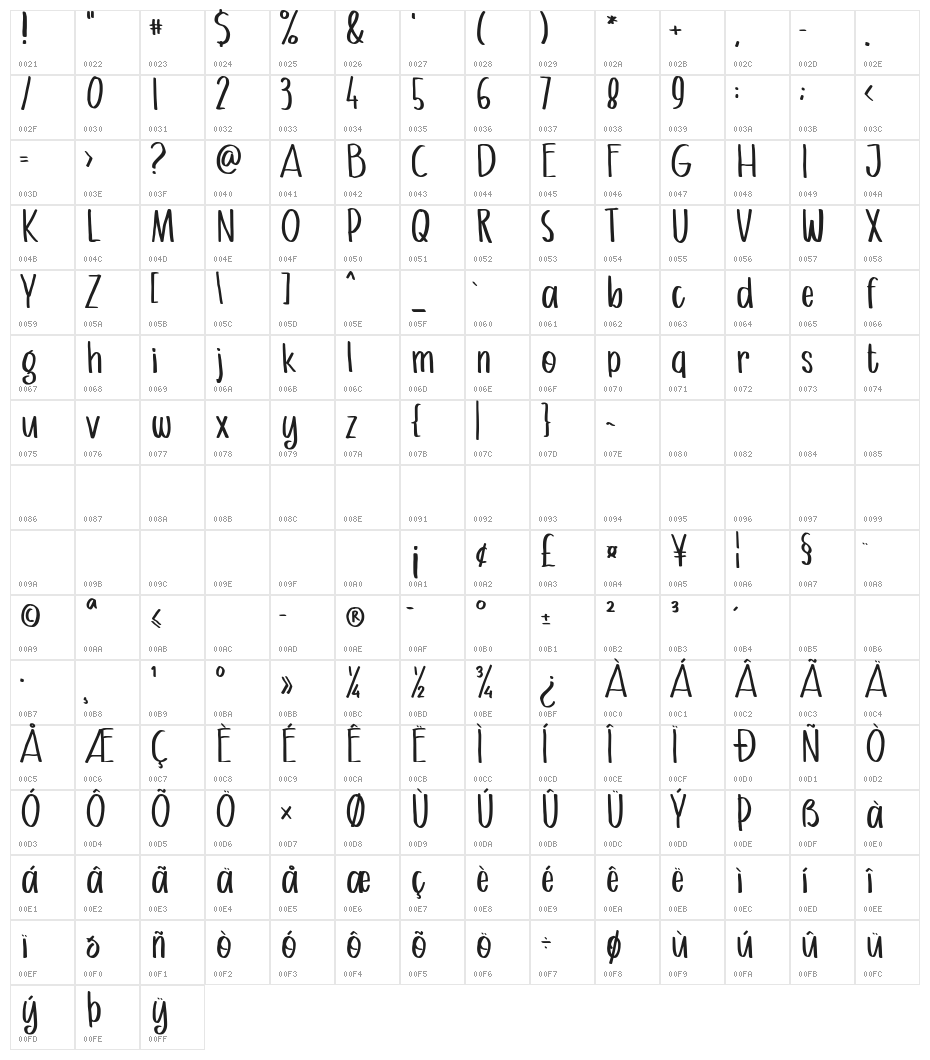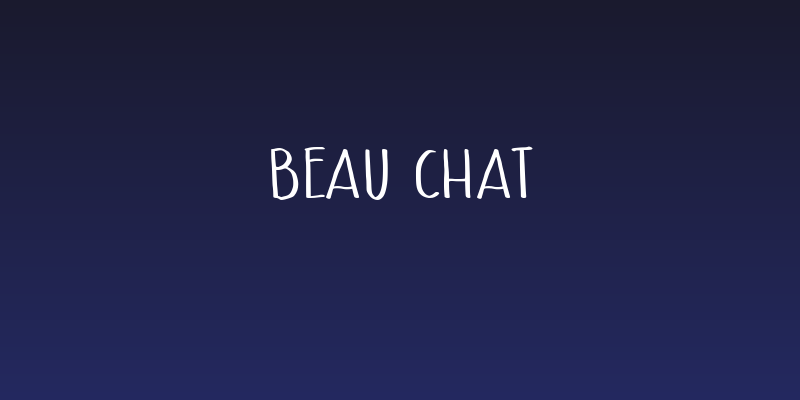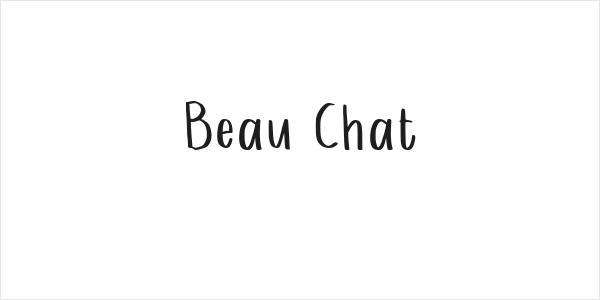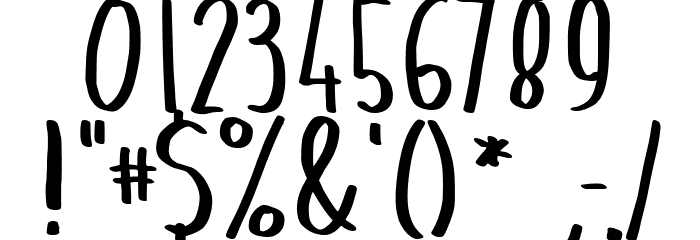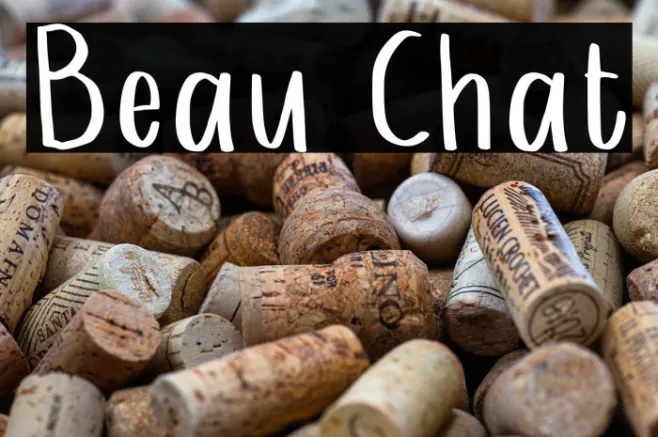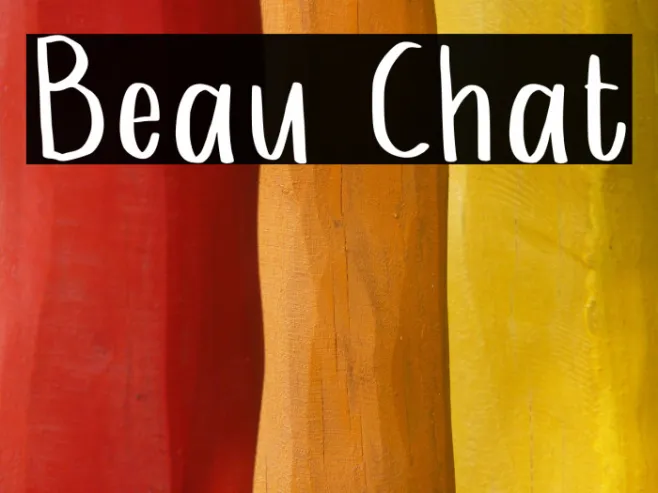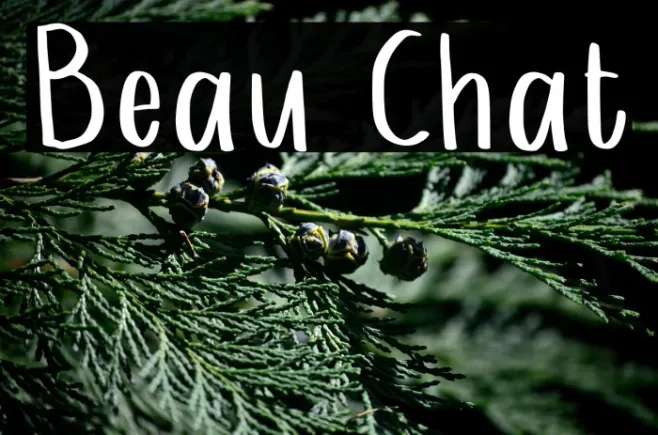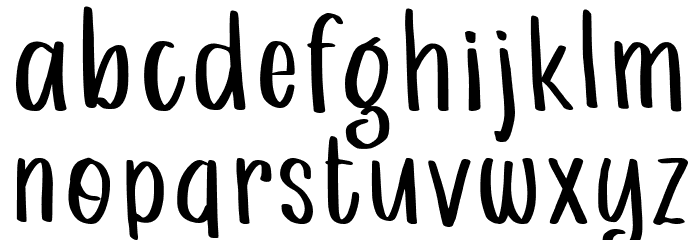
Beau Chat Font
Beau Chat Description
This font features a playful and handwritten style, characterized by its tall, narrow letters and slightly irregular strokes that give it a casual and friendly appearance. The uppercase and lowercase letters maintain a consistent height, contributing to a cohesive look. The numbers are clear and legible, with a slight tilt that adds to the font's informal charm. Special characters are well-integrated, maintaining the overall aesthetic. The font's design is versatile, suitable for projects that require a personal touch or a relaxed vibe.
| Use Case | Headlines, Informal text, Branding |
| Proposed Projects | Ideal for greeting cards, children's books, casual branding, and social media graphics. |